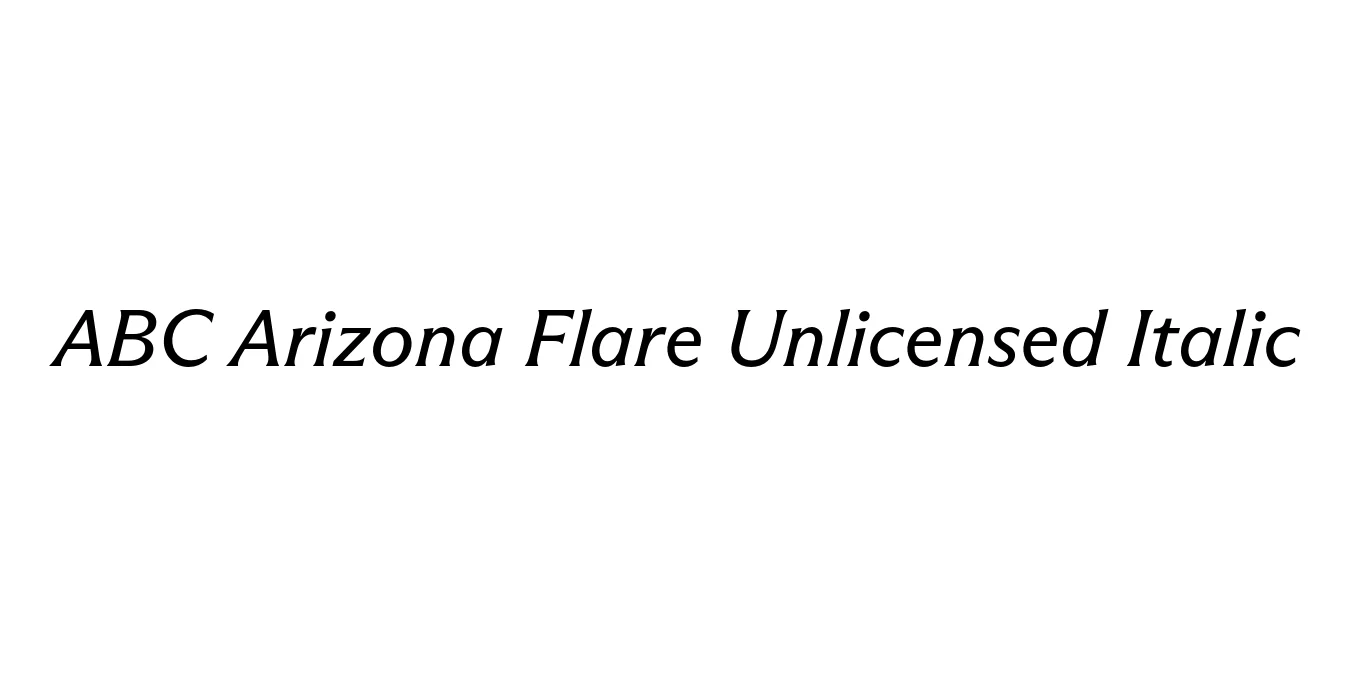
ABC Arizona Flare Unlicensed Italic
Designed by Elias Hanzer
| Category | Flare Serif |
| Designer | Elias Hanzer |
ABC Arizona Flare is a central component of the expansive Arizona superfamily, designed by Elias Hanzer and released through the renowned Swiss type foundry, Dinamo. This specific variant represents a sophisticated middle ground in the typeface's evolutionary system, which famously transitions from Serif to Sans through five distinct stages. The Flare iteration captures the moment where serifs begin to emerge as subtle, swelling terminals, providing a calligraphic touch without the structural weight of a traditional slab or wedge serif.
The Italic version of Arizona Flare adds a dynamic, fluid energy to the design, emphasizing its humanist roots and Swiss precision. While the 'Unlicensed' moniker often refers to specific trial or early-access versions of the font, the design itself remains a masterclass in variable font technology and stylistic flexibility. It is widely celebrated in the design community for its ability to function across diverse aesthetic contexts, from high-fashion branding to rigorous editorial systems.
ABC Arizona Flare Unlicensed Italic Best Uses
Perfect for high-end fashion and lifestyle brand identities.
Excellent for sophisticated headlines and pull quotes in print magazines.
Provides a unique, crisp character for hero sections and landing pages.
The unique swelling terminals offer a distinct silhouette for wordmarks.